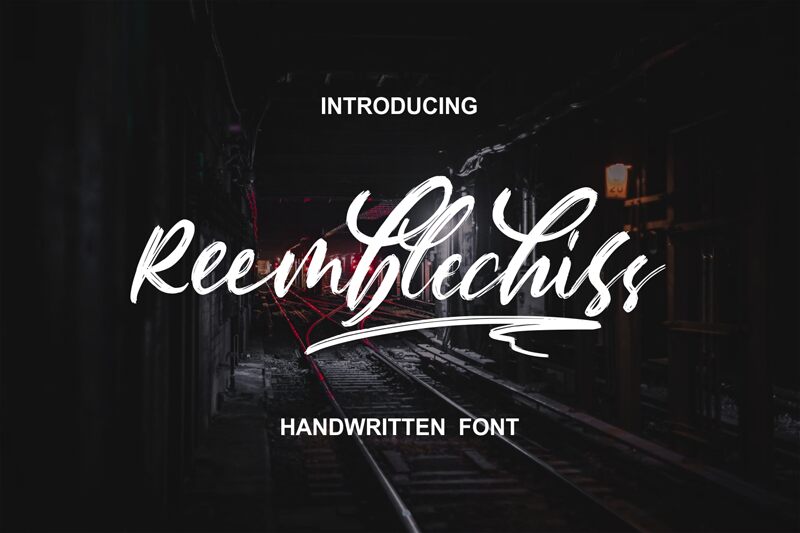
Meet Reemblechiss, the playful and whimsical font designed by © zamjumpstudio. With its semi-condensed width and handwritten style, Reemblechiss is perfect for adding a personal touch to your design projects. Whether you're creating greeting cards or designing logos for your small business, this font will add a charming and unique flair to your work. Its organic lines and quirky character make it ideal for children's book illustrations, while its sophisticated feel makes it suitable for wedding invitations and other formal events. Let Reemblechiss bring some personality to your next project!